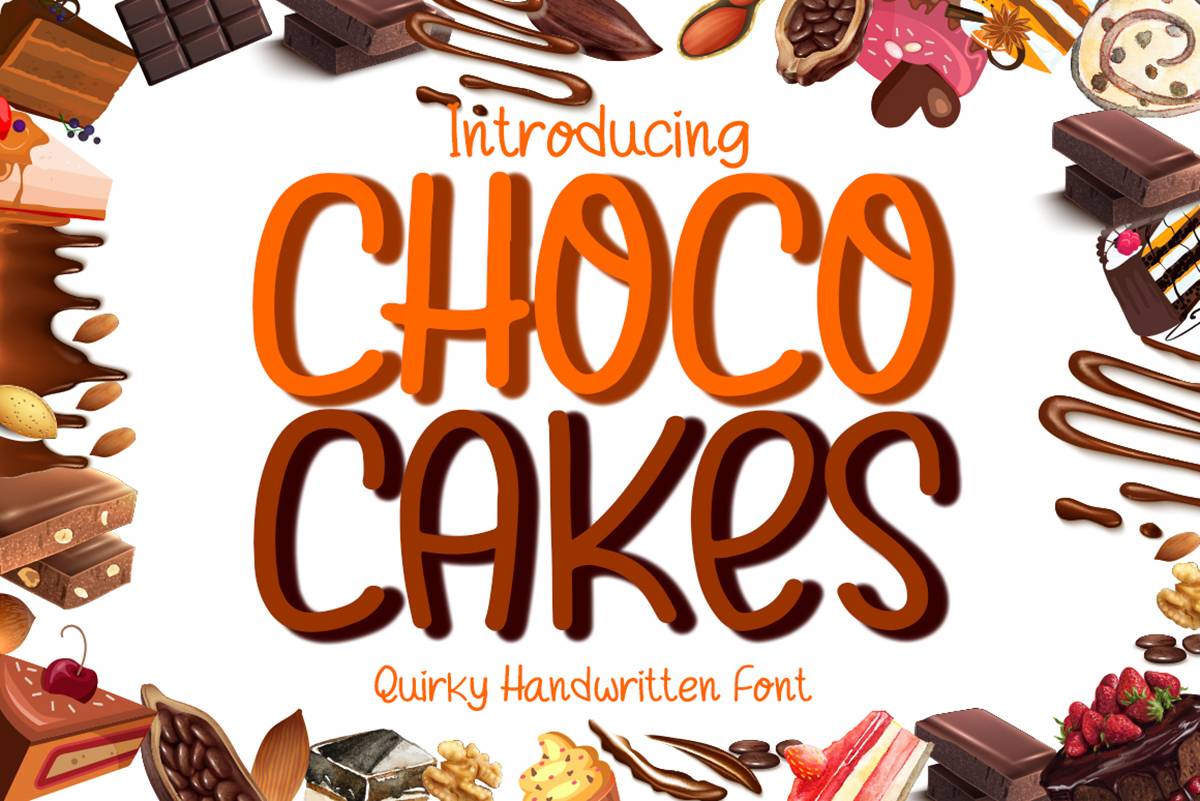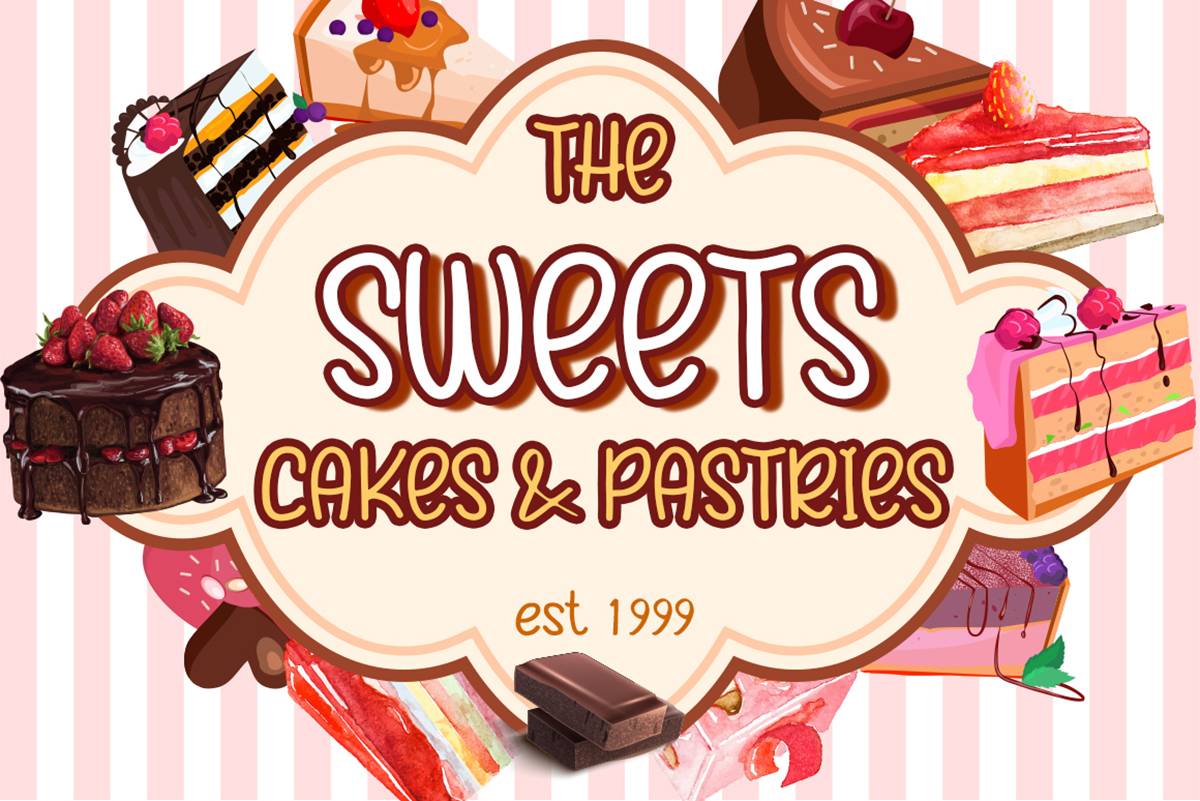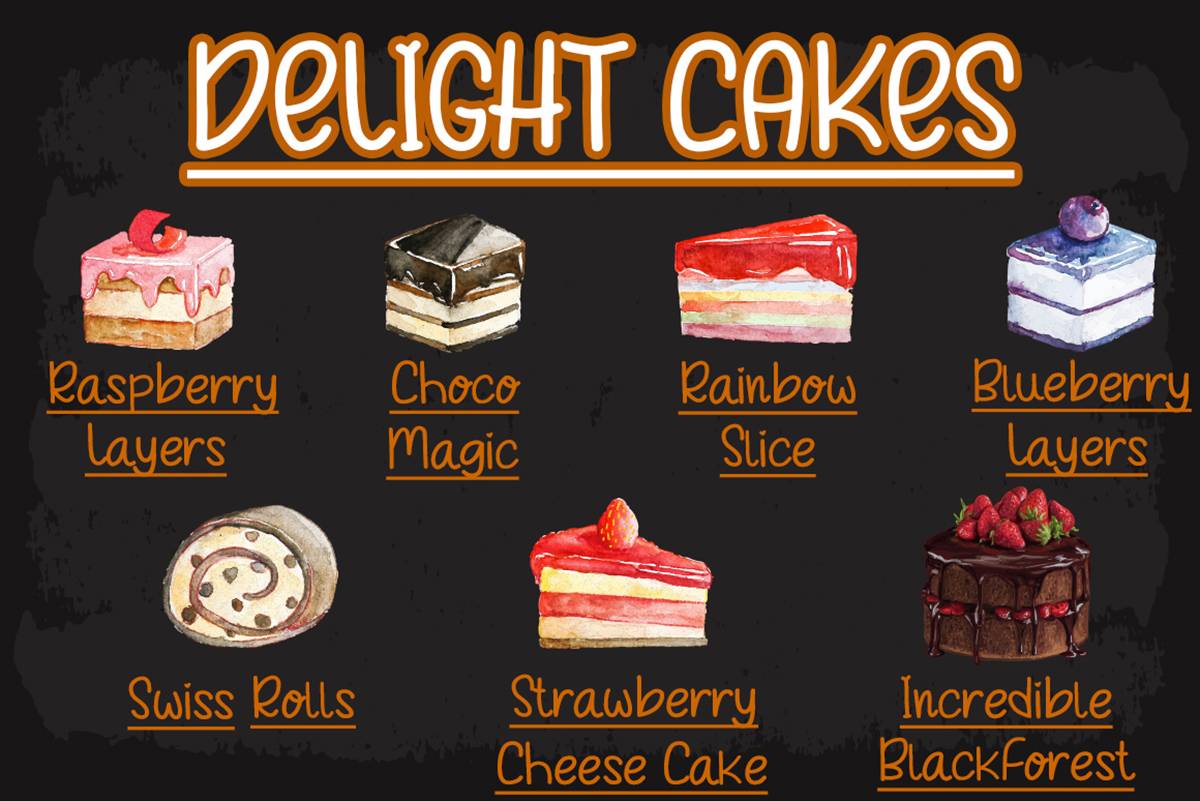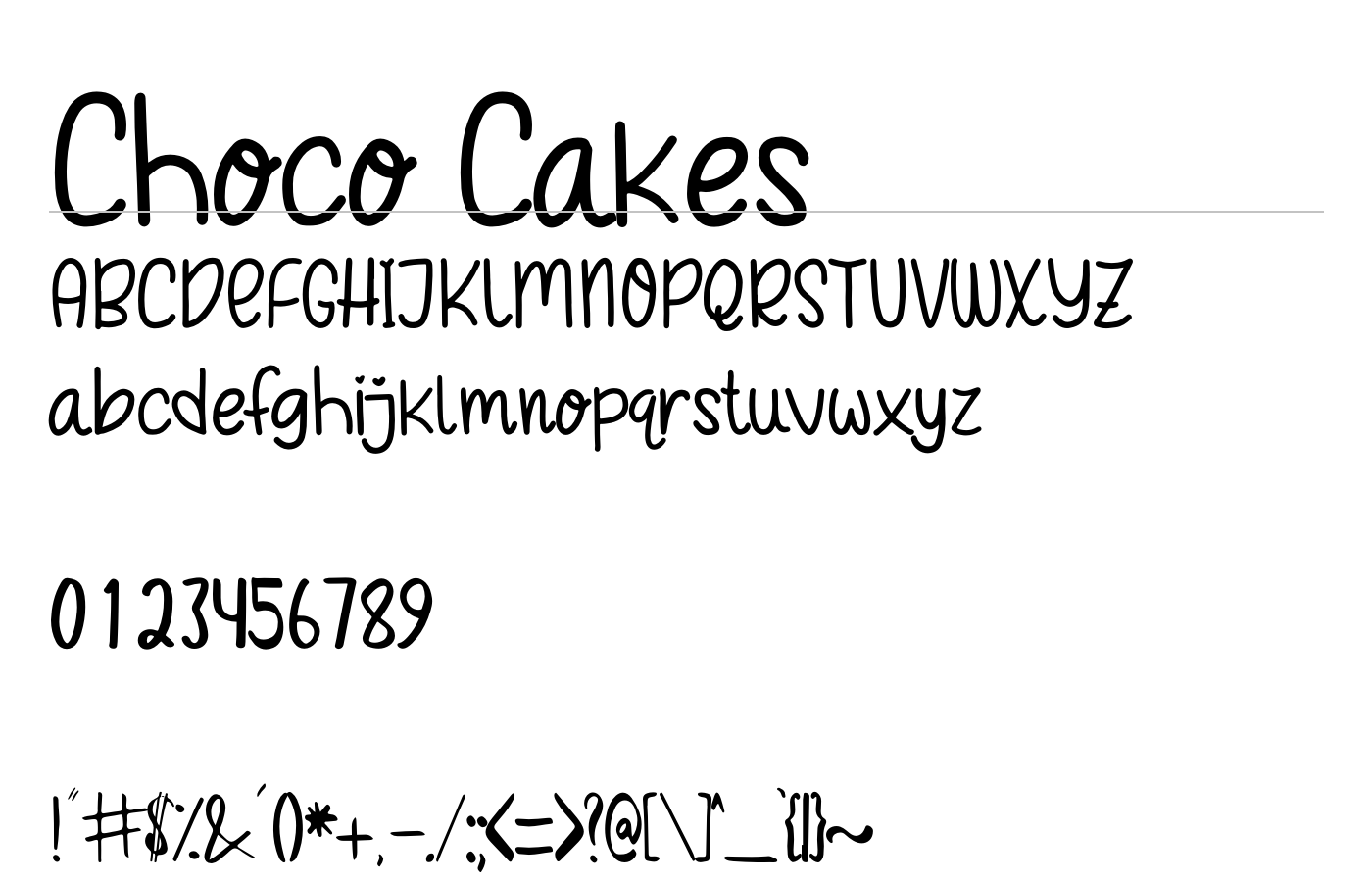
Choco Cake is a playful, handwritten sans serif font with a casual and friendly feel. It features irregular strokes with a light weight and tall x-height, giving it an approachable, whimsical charm ideal for informal and creative designs. Perfect for children's books, invitations, branding, and fun digital content, it brings a warm, personal touch that feels easygoing and inviting.
Choco Cake Font
About Choco Cake Font